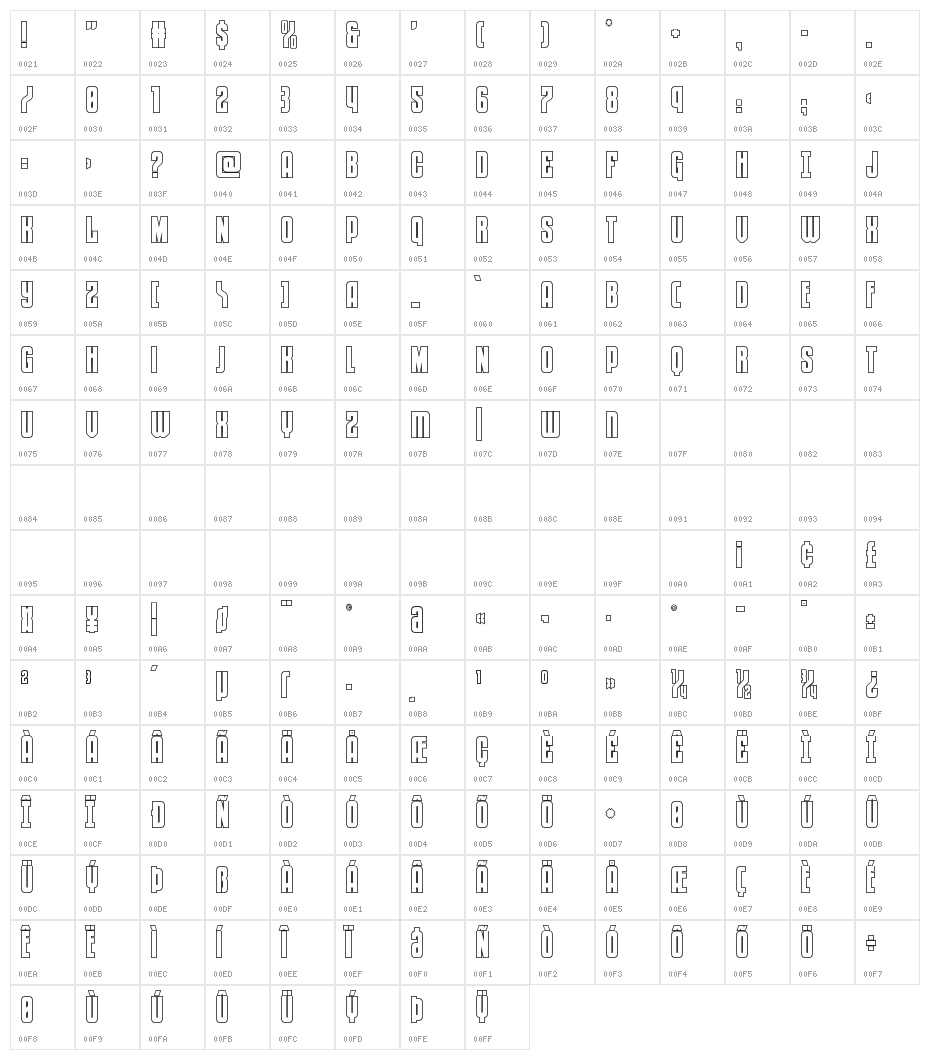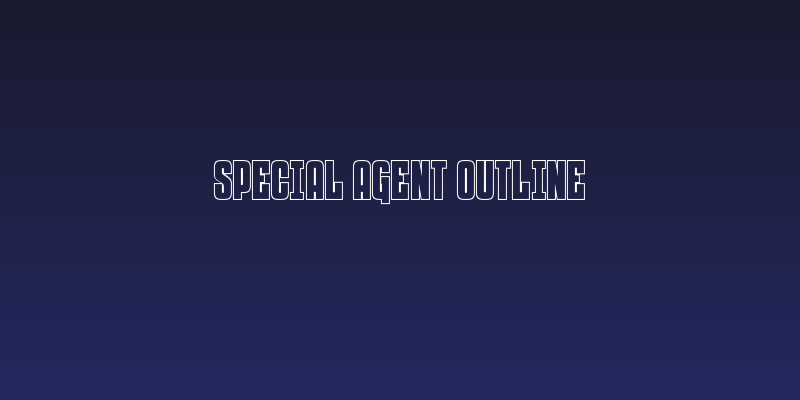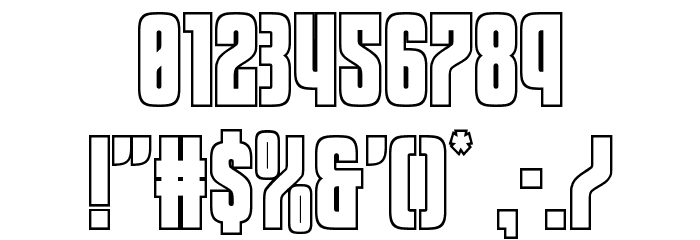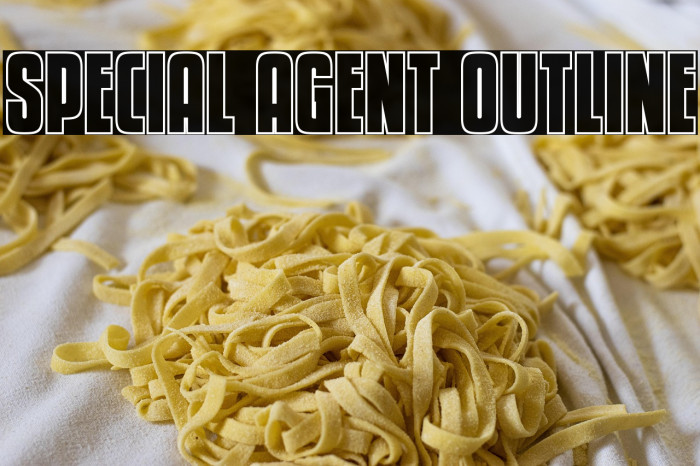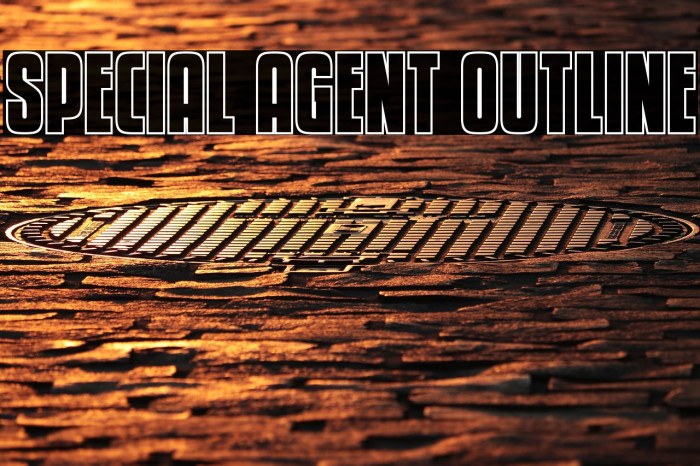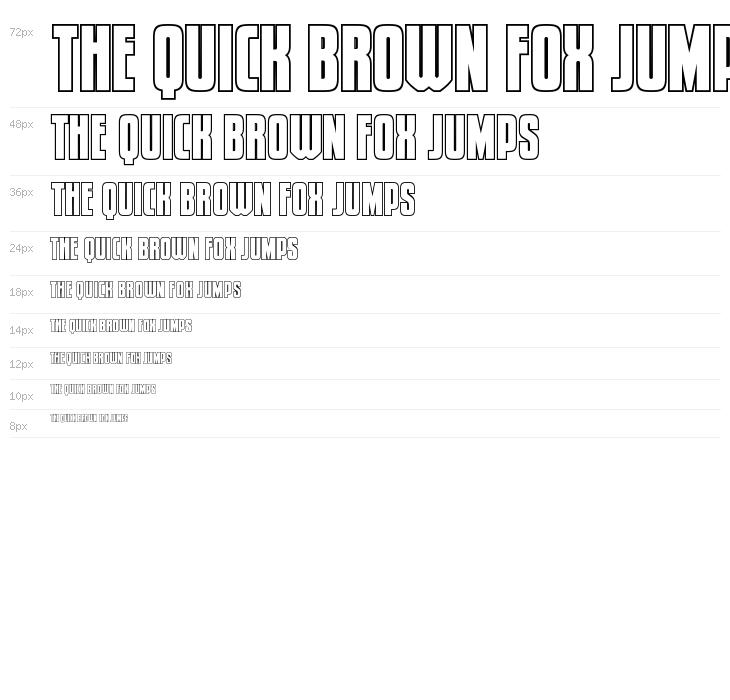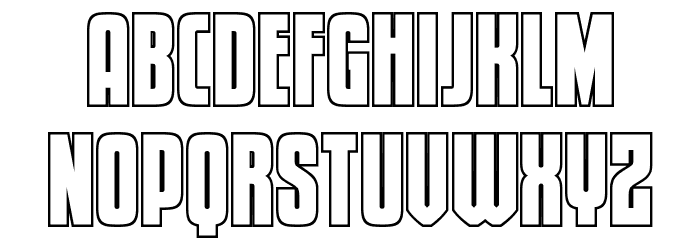
Special Agent Outline Font
This font features a bold, outlined style that emphasizes each character with a strong, defined border. The uppercase letters are tall and imposing, giving a sense of authority and strength. The characters are uniformly wide, creating a consistent and balanced appearance across the alphabet. The numbers and special characters maintain this bold outline, ensuring they stand out clearly. This font is ideal for making a statement, with its high visibility and impactful design. The overall look is modern and assertive, suitable for projects that require a strong visual presence.
| Proposed Projects | Ideal for posters, headlines, branding, and any project needing a strong visual impact. |